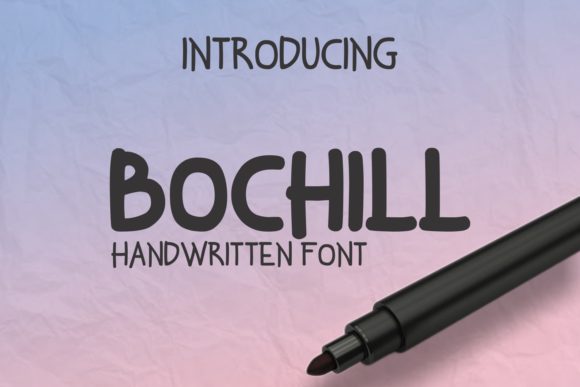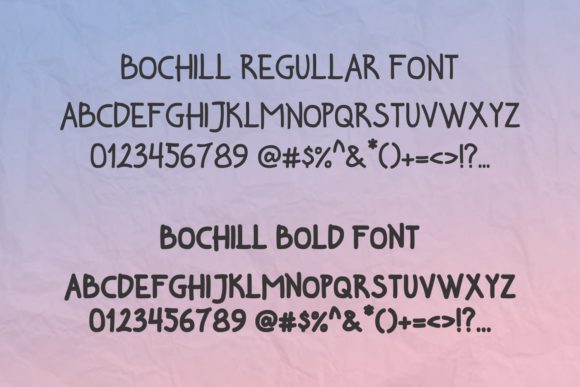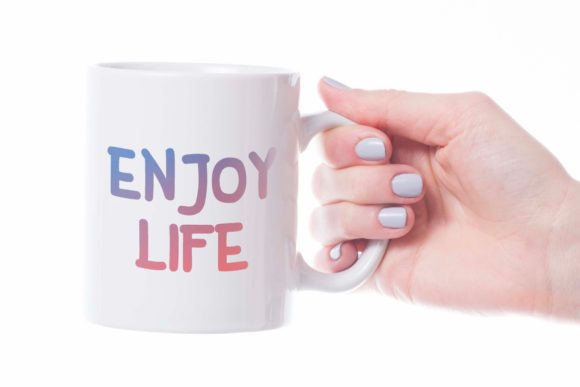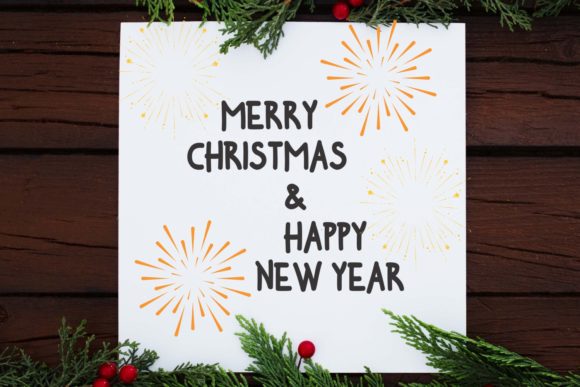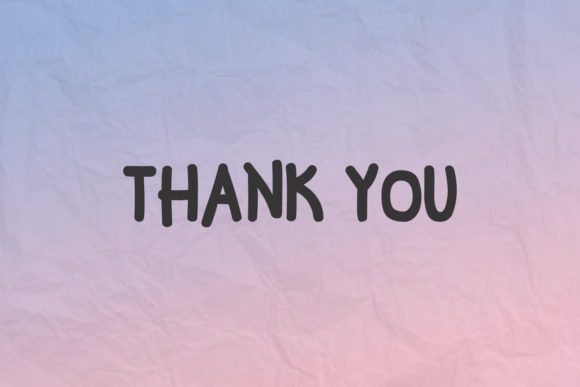
Bochill Font
About Bochill Font
Bochill is a sweet and charming script font that’s perfect for adding a sweet vibe to your next design idea. Get inspired by its unique style!